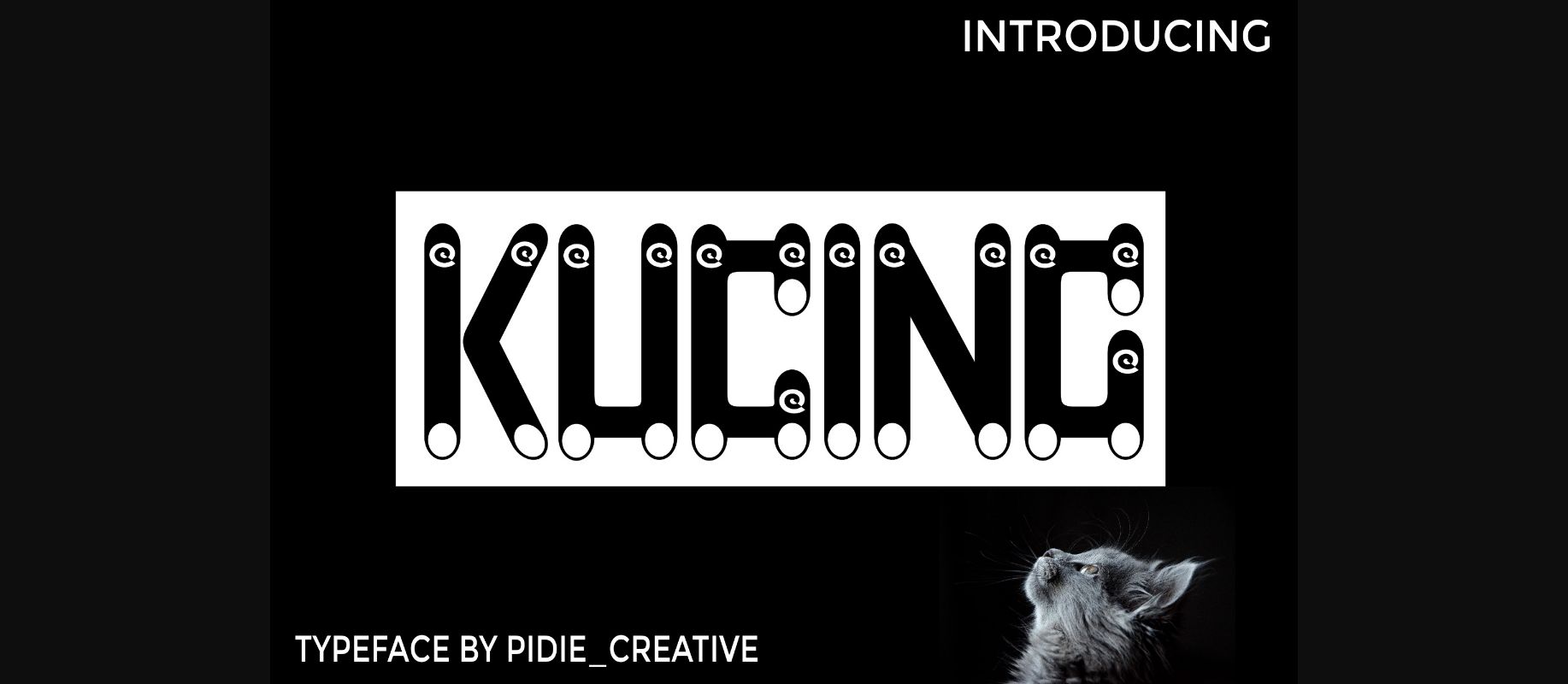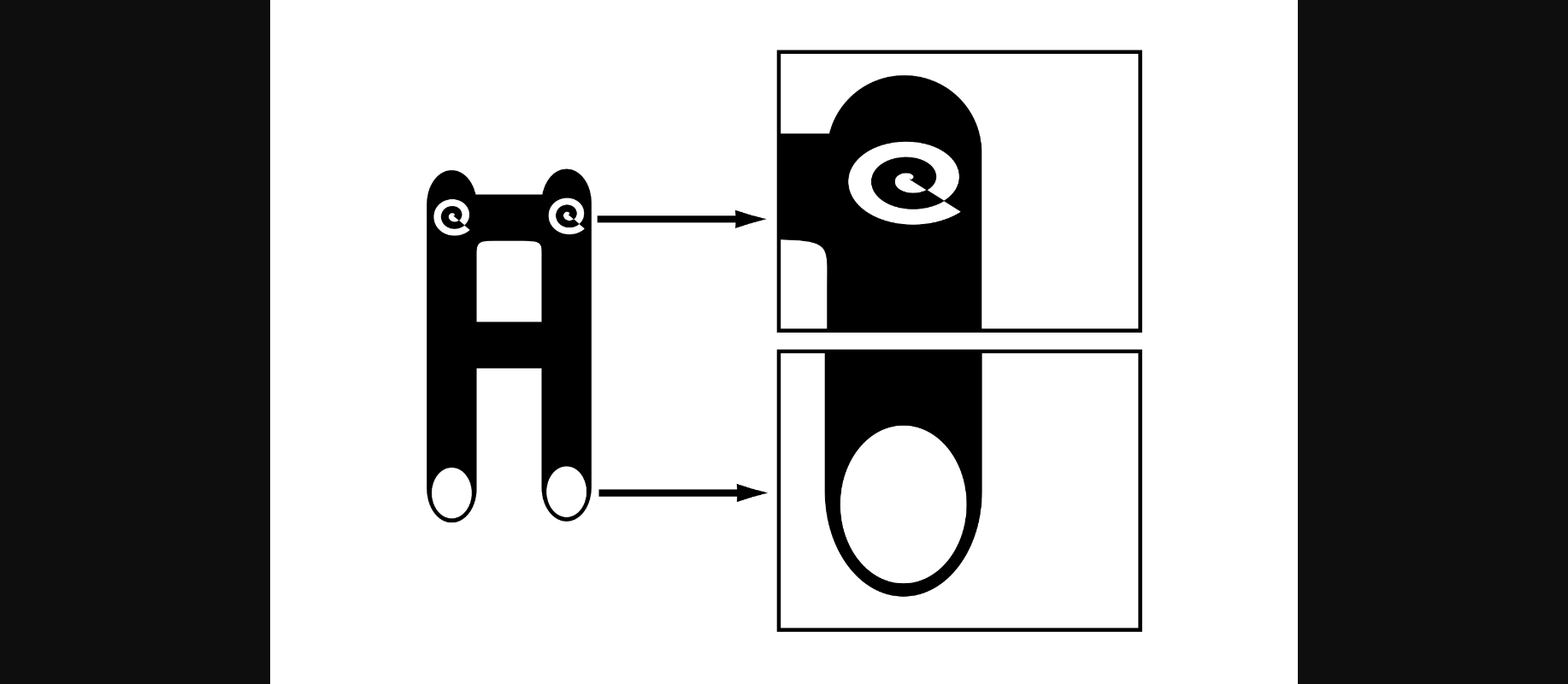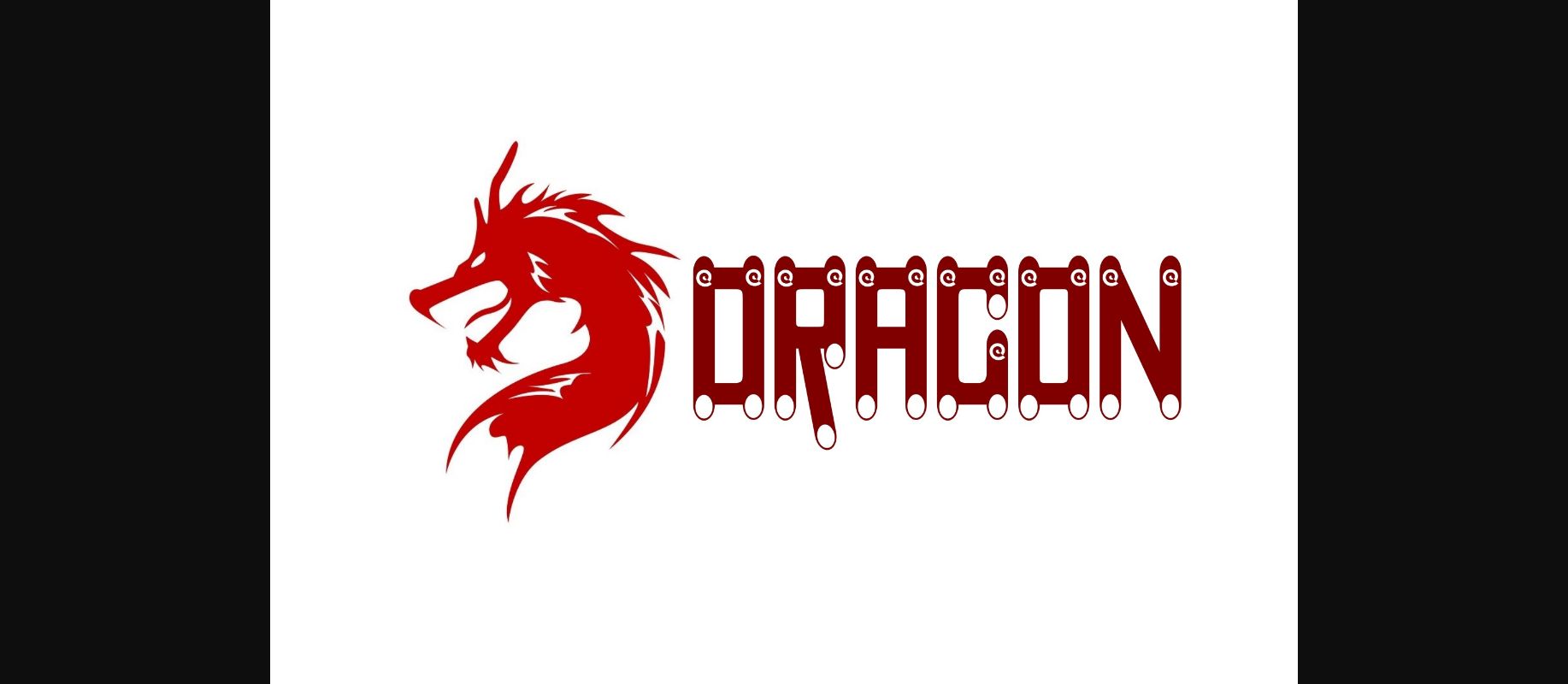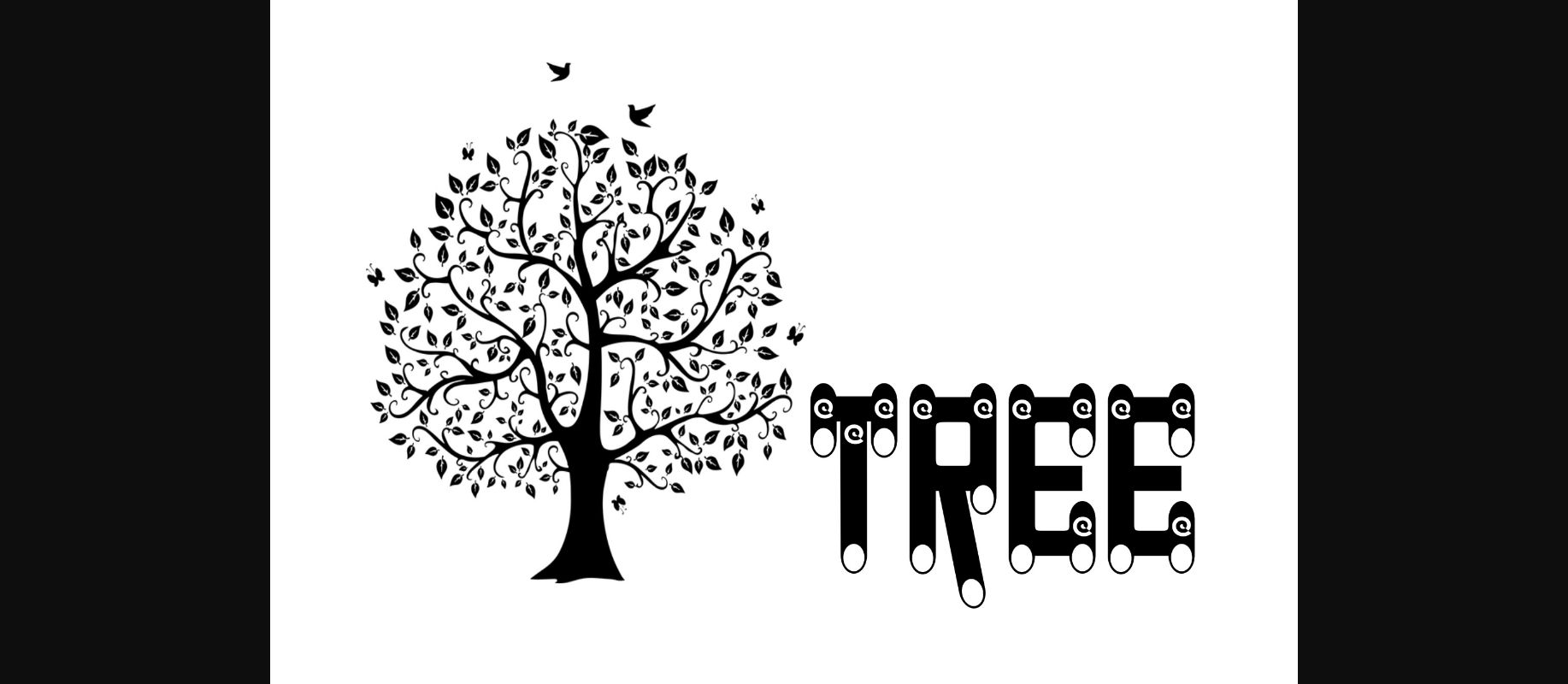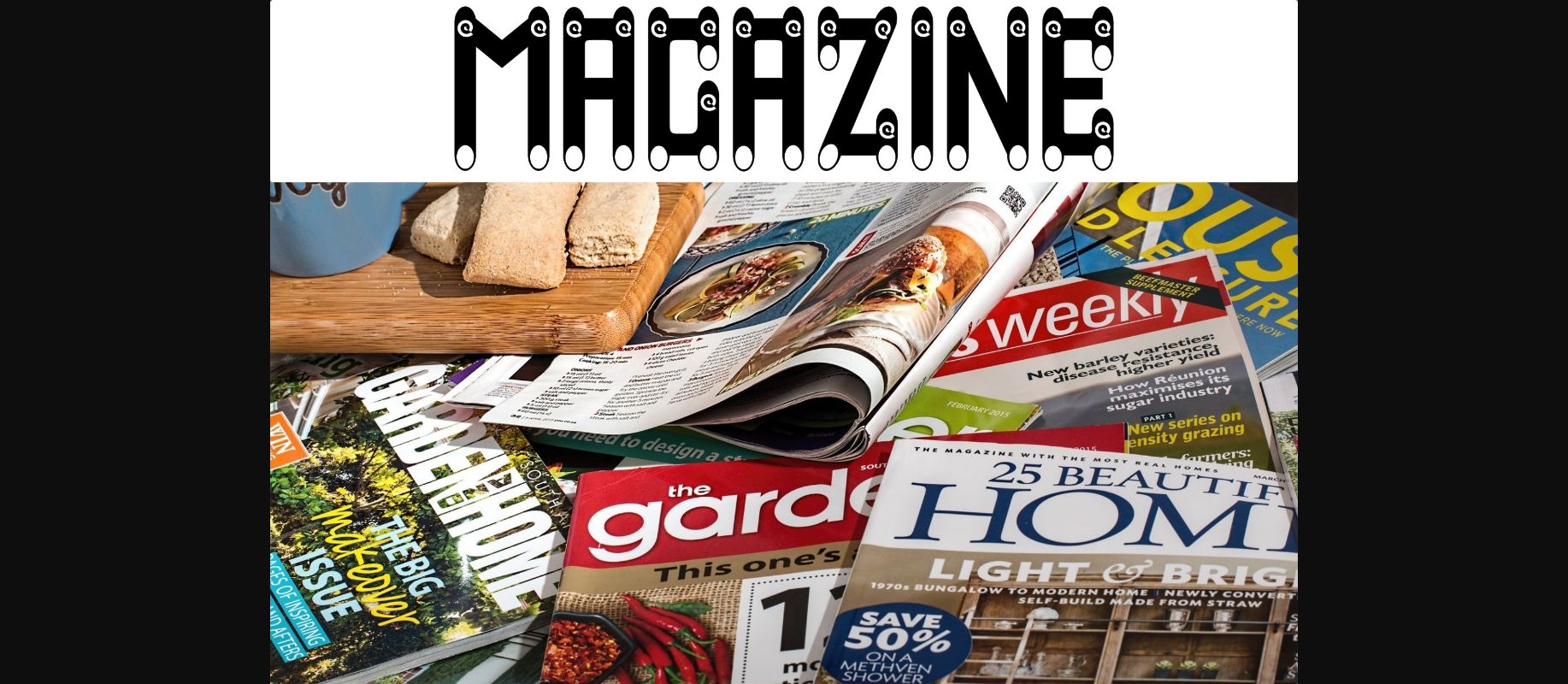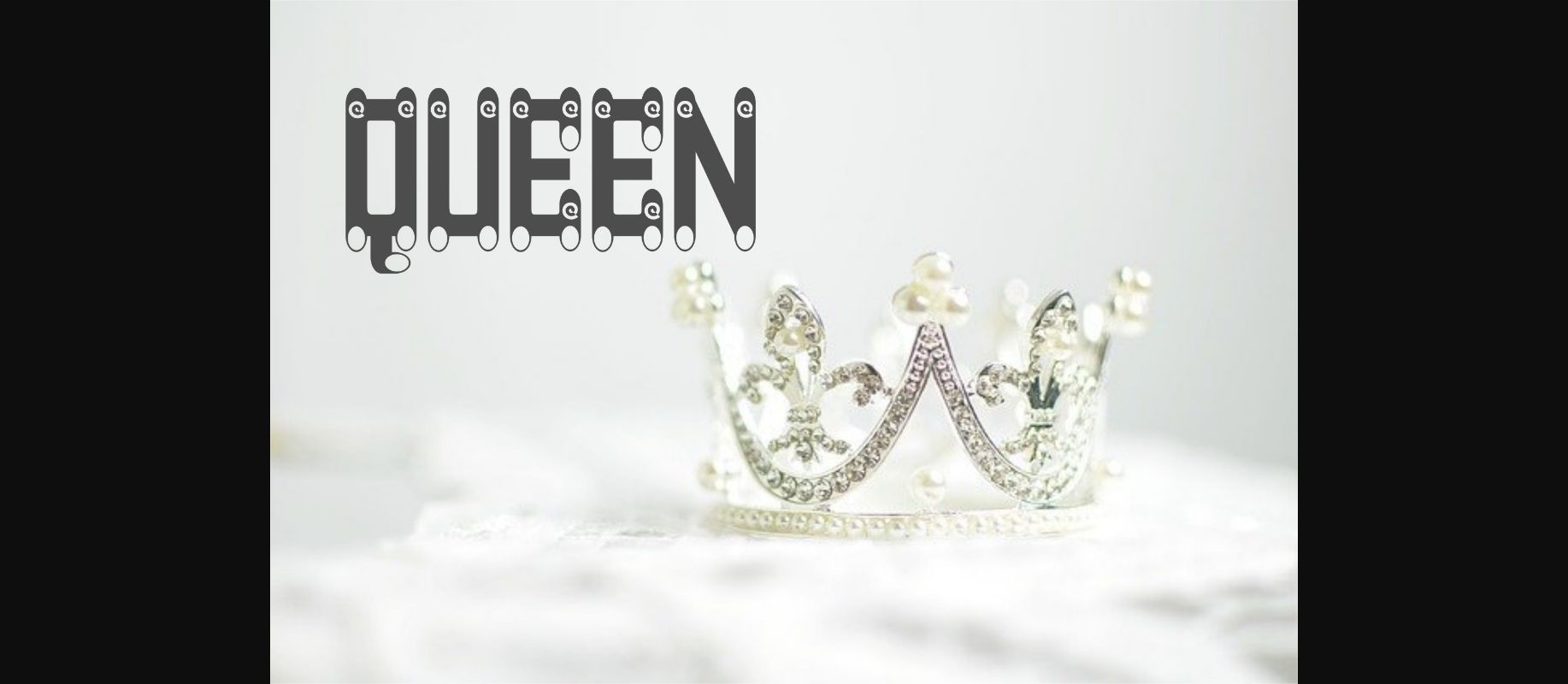
About Kucing Font
Kucing is a unique and beautiful decorative font. This font is made with a unique engraving which makes it beautiful and different from other fonts. It is perfect for various types of posters, magazines, flyers and more!